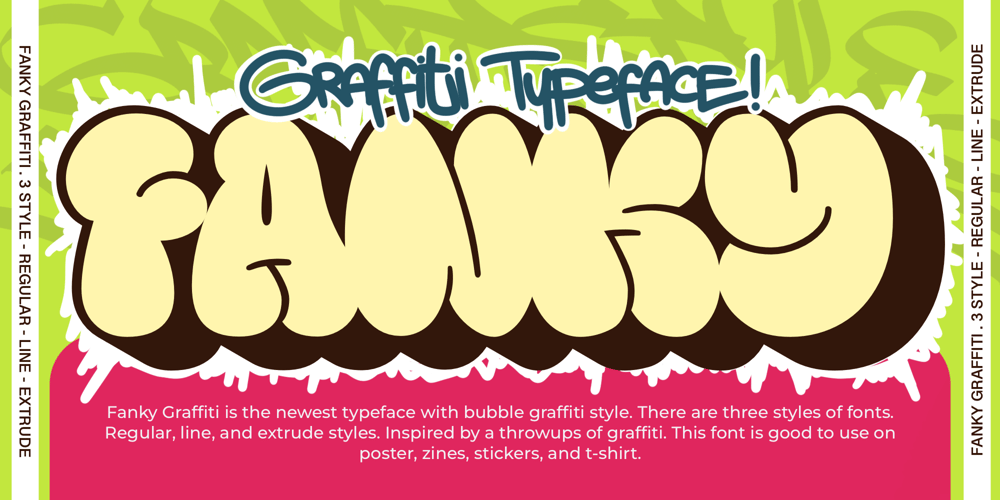
Fanky Bubble Font Family was designed by Moch Fitrah Hidayat and published by Fitrah Type. Fanky Bubble contains 3 styles and family package options. Fanky Bubble is the newest typeface with a bubble graffiti style. There are three styles of font. Regular, line, and extrude styles Inspired by a throwup of graffiti. The entire typography has been designed to work on large sizes. This font is good to use on posters, zines, hero websites, stickers, and t-shirts.Features :- Lowercase & Uppercase ( All Caps )- numbers and punctuation- Alternate & Ligature- multilingual- PUA encodedPlease contact us if you have any questions.